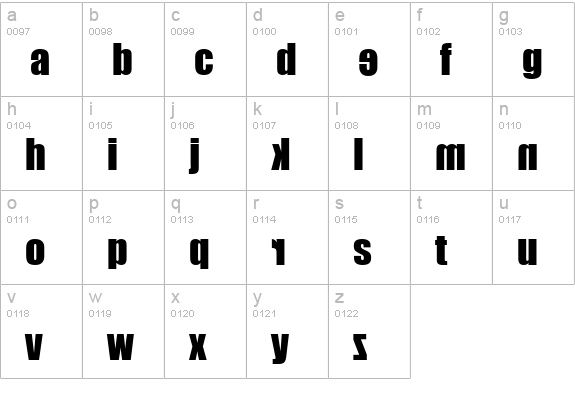
IRR3V3RSIBL3 Font Details
Introducing IRR3V3RSIBL3, a captivating and extraordinary font that will take your designs to the next level. This font is a true masterpiece, meticulously crafted with precision and creativity. Its unique design effortlessly combines elegance and boldness, making it perfect for a wide range of projects. IRR3V3RSIBL3 stands out from the crowd with its distinctive and mesmerizing appearance. Each letter is intricately designed, featuring intricate details and beautiful curves that demand attention. This font is a true representation of modernity and sophistication, sure to make a lasting impression on any audience. But what sets IRR3V3RSIBL3 apart is not just its stunning visual appeal. It also offers unrivaled versatility, making it suitable for a variety of design projects. Whether you're creating a logo, designing a poster, or crafting a website, this font will effortlessly elevate your work to new heights. And the best part? IRR3V3RSIBL3 is completely free! Yes, you heard that right. This extraordinary font is freely available to download at FontsMarket.com. Now you can bring your creative visions to life without breaking the bank. So why wait? Download IRR3V3RSIBL3 today and unlock the potential of your designs. With IRR3V3RSIBL3, the possibilities are endless. Let your imagination run wild as you explore the limitless potential of this remarkable font. Create stunning visuals, captivate your audience, and leave a lasting impression with IRR3V3RSIBL3. Don't miss out on this incredible opportunity to elevate your designs. Download IRR3V3RSIBL3 for free at FontsMarket.com and embark on a journey of creativity like never before.